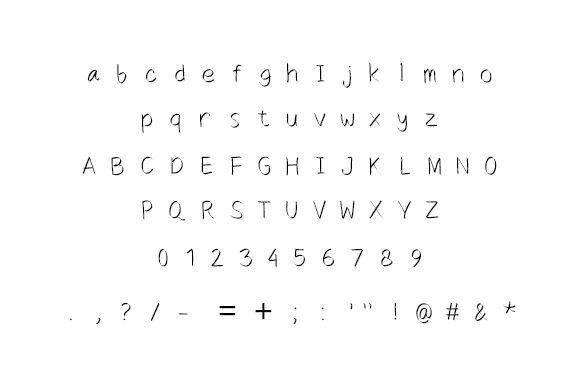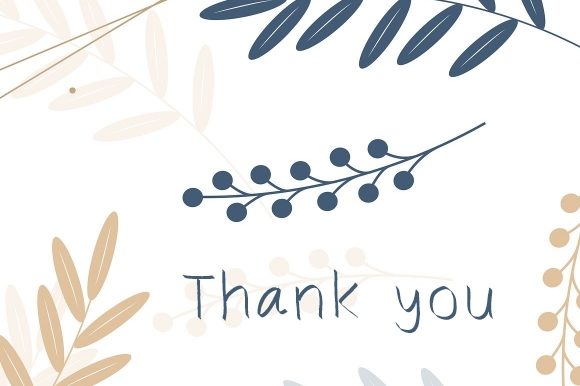
Introduction to Seterah Font
Seterah is a timeless and relaxed handwritten font.
Whether you’re looking for fonts for Instagram or calligraphy scripts for DIY projects, Seterah will turn any creative idea into a true piece of art .
Key Features of Seterah Font
Why Choose Seterah Font?
Seterah Font offers exceptional quality and versatility, making it a valuable addition to your design toolkit. Whether you’re creating for personal projects or commercial use, Seterah Font delivers professional results.